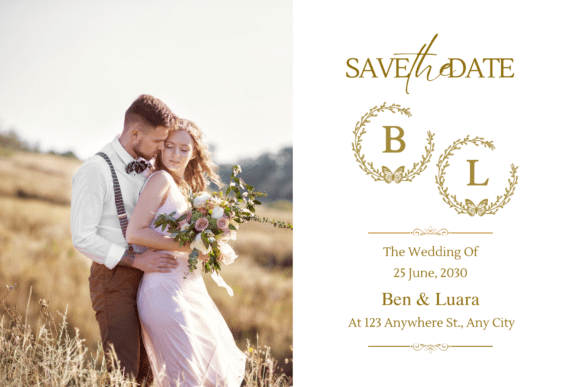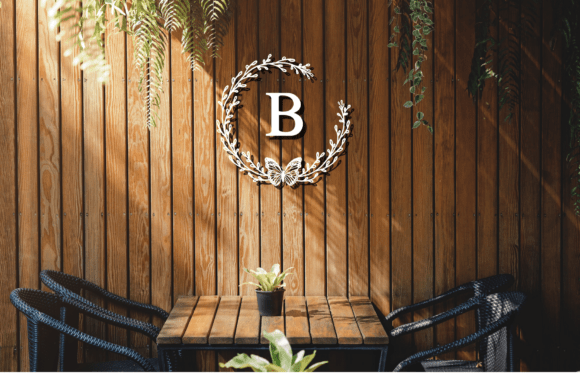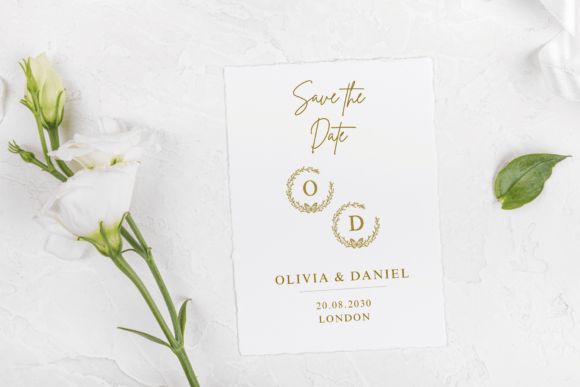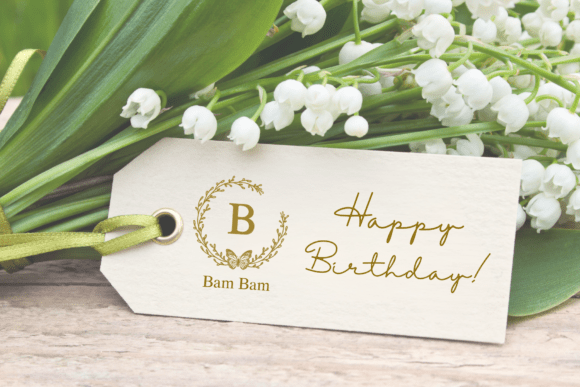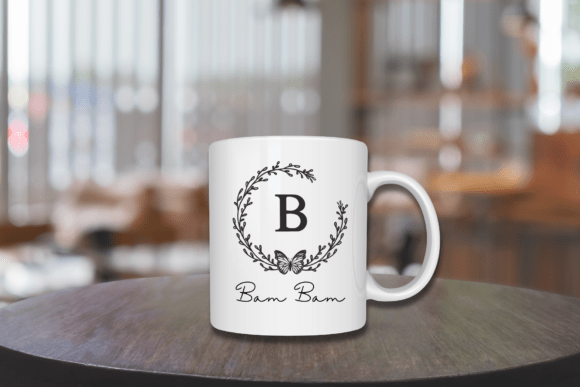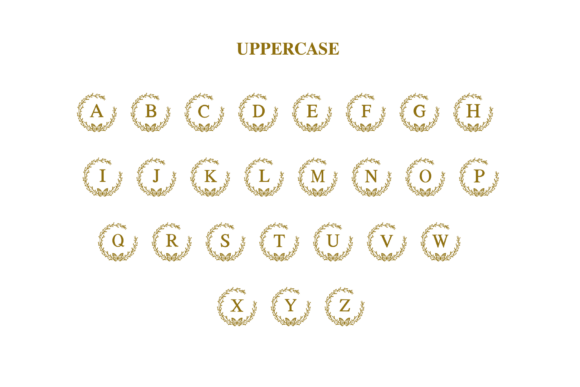
Introducing Butterfly Love Monogram Font: Elevate Your Designs with Elegance
Are you a designer or crafter looking for a unique and elegant font to make your creations stand out? Look no further than the Butterfly Love Monogram Font. This beautiful font is designed specifically for special occasions, adding a touch of charm and sophistication to any celebration. In this article, we’ll dive into the details of this stunning font and explore how it can elevate your designs.
What is Butterfly Love Monogram Font?
Butterfly Love Monogram Font is an elegant font designed for special occasions. It features decorative letters inside a beautiful flower and butterfly round frame, making it perfect for invitations, wedding cards, and other celebratory designs. The font’s unique design combines the delicate beauty of flowers and butterflies with the sophistication of a monogram, creating a truly one-of-a-kind look.
Key Features of Butterfly Love Monogram Font
- Decorative Letters: The font features beautifully designed decorative letters that are perfect for adding a touch of elegance to your designs.
- Flower and Butterfly Frame: The font’s unique frame features a beautiful flower and butterfly design, adding a delicate and whimsical touch to your creations.
- Perfect for Special Occasions: The font is designed specifically for special occasions, making it ideal for invitations, wedding cards, and other celebratory designs.
How to Use Butterfly Love Monogram Font
Using Butterfly Love Monogram Font is easy and straightforward. Here are a few ways you can incorporate this beautiful font into your designs:
- Invitations: Use the font to create stunning invitations for weddings, baby showers, and other special occasions.
- Wedding Cards: Add a touch of elegance to your wedding cards with this beautiful font.
- Crafting: Use the font to create beautiful crafts, such as scrapbooking, card making, and other paper crafts.
- Digital Designs: Use the font to create stunning digital designs, such as social media graphics, blog posts, and other online content.
Benefits of Using Butterfly Love Monogram Font
There are many benefits to using Butterfly Love Monogram Font in your designs. Here are a few:
- Unique and Elegant: The font’s unique design and elegant style make it perfect for special occasions and celebrations.
- Time-Saving: The font is easy to use and can save you time and effort in creating beautiful designs.
- Versatile: The font can be used in a variety of designs, from invitations and wedding cards to digital designs and crafts.
Tips and Tricks for Using Butterfly Love Monogram Font
Here are a few tips and tricks for using Butterfly Love Monogram Font in your designs:
- Experiment with Colors: Experiment with different colors and combinations to find the perfect look for your design.
- Pair with Other Fonts: Pair the font with other fonts to create a unique and interesting look.
- Use in Combination with Images: Use the font in combination with images to create a stunning and eye-catching design.
Butterfly Love Monogram Font is a beautiful and elegant font that is perfect for special occasions and celebrations. With its unique design and easy-to-use features, it’s a great addition to any designer’s or crafter’s toolkit. Whether you’re creating invitations, wedding cards, or digital designs, this font is sure to add a touch of charm and sophistication to your creations.